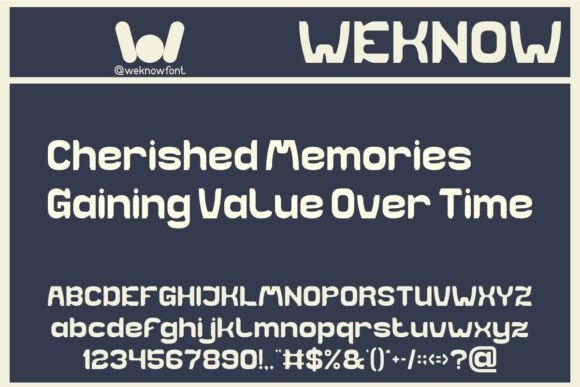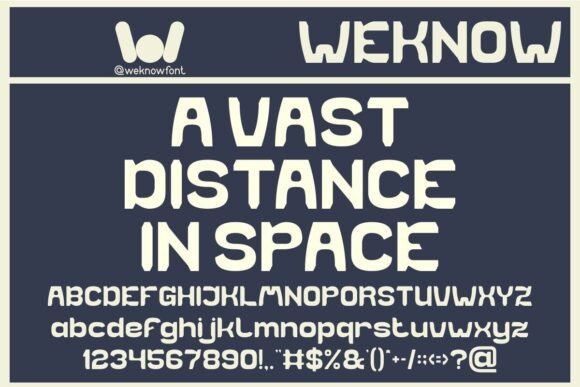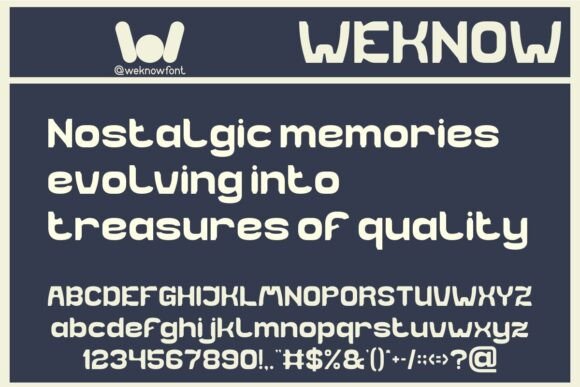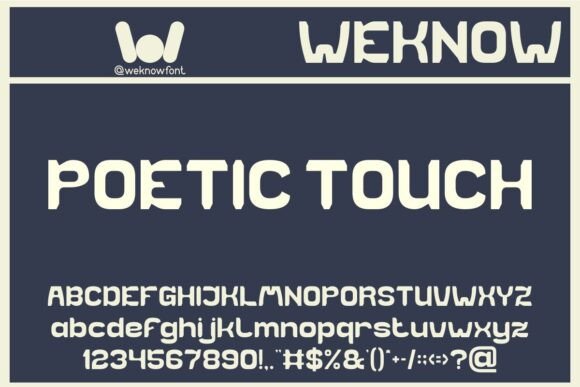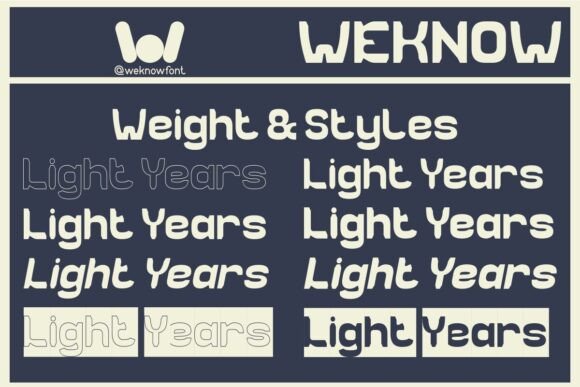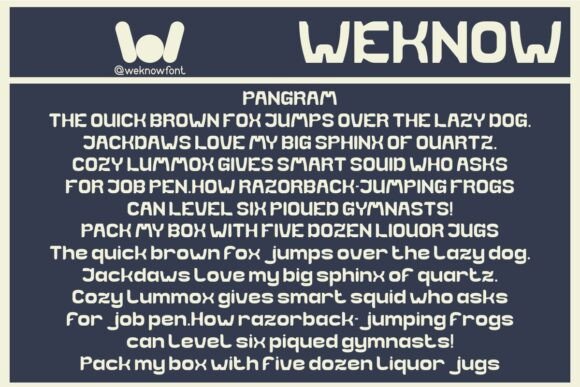
Introduction to Light Years Font Font
Fonts play a crucial role in design, and the Light Years Font font is a typeface that brings both character and versatility to any project. Whether you’re working on a branding project, a website, or a print design, the Light Years Font font offers a unique style that can elevate your work.
Introducing βLight Yearsβ, a stylized fusion of future and vintage inspirations that epitomizes both minimalist simplicity and decorative charm.
Its unique character stands out in logos, headlines, and across brand visual identities, adding a classic retro vibe Light Years enriches any apparel designs, gracefully headlines magazines, and lends a distinct aesthetic to book covers and comic strips.
Key Features of Light Years Font Font
Why Choose Light Years Font Font?
The Light Years Font font is more than just a typeface β it’s a design tool that helps you communicate your message with style and clarity. Its unique character set and versatile design make it suitable for a wide range of applications, from elegant invitations to bold headlines.
With its carefully crafted letterforms and balanced proportions, the Light Years Font font ensures readability and visual appeal across all mediums.
What makes Light Years Font font special?
The Light Years Font font stands out with its unique design, exceptional readability, and versatility across various design applications.